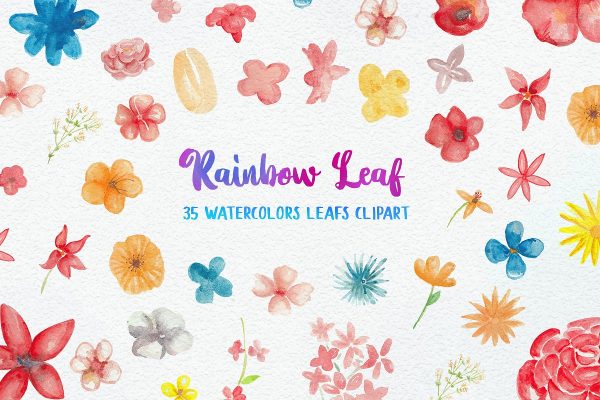
DearDay Watercolor Toolbox
Please welcome, DearDay Watercolor Toolbox!
Yes, it is a toolbox. The reason why I named it as a toolbox is because you will get tons of item in one product! This product will contain 10 fonts and 65 hand-drawn watercolor illustration in png! Yeah you hear it right! This product will provide anything you need to create a lovely watercolor art. Just mix and match the fonts and then you can get a beautiful lettering that you can use in any media you want! Very suitable for wedding invitation, greeting cards, merchandise, apparel, poster / print design, etc.
1. 10 FONTS:
• Dearday script (OTF & TTF)
• Dearday sans (OTF & TTF)
• Blodders (OTF & TTF)
• Callonsky (OTF & TTF)
• Kulon (OTF & TTF)
• Quicken (OTF & TTF)
• Reklase (OTF & TTF)
• Skizzle (OTF & TTF)
• Storytella (OTF & TTF)
• Swiftone (OTF&TTF)
2. 25 watercolor flower illustration in PNG
3. 35 watercolor leaf illustration in PNG